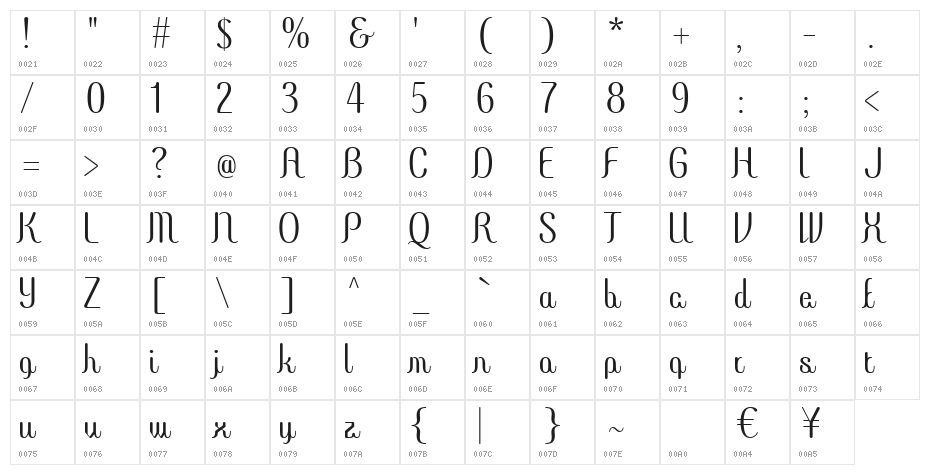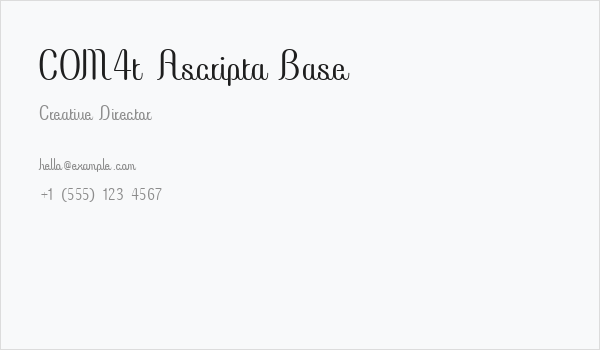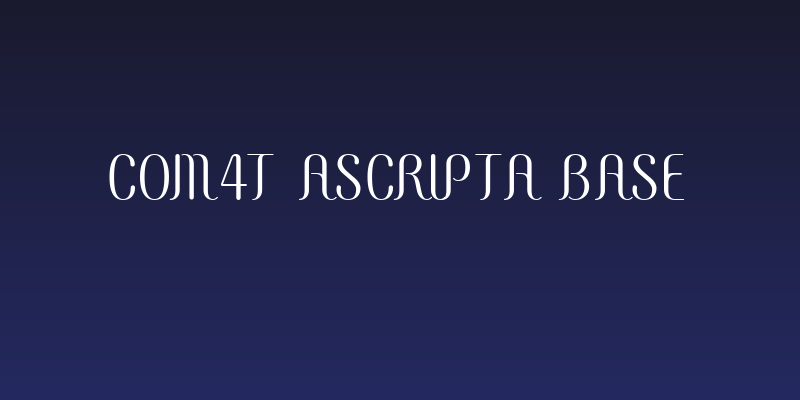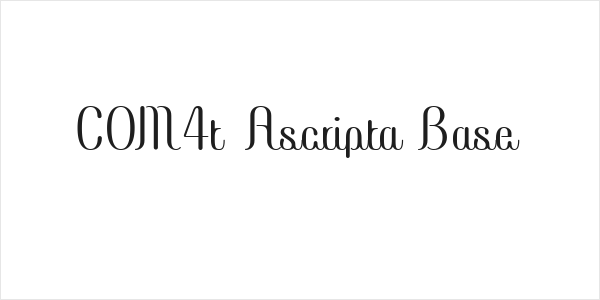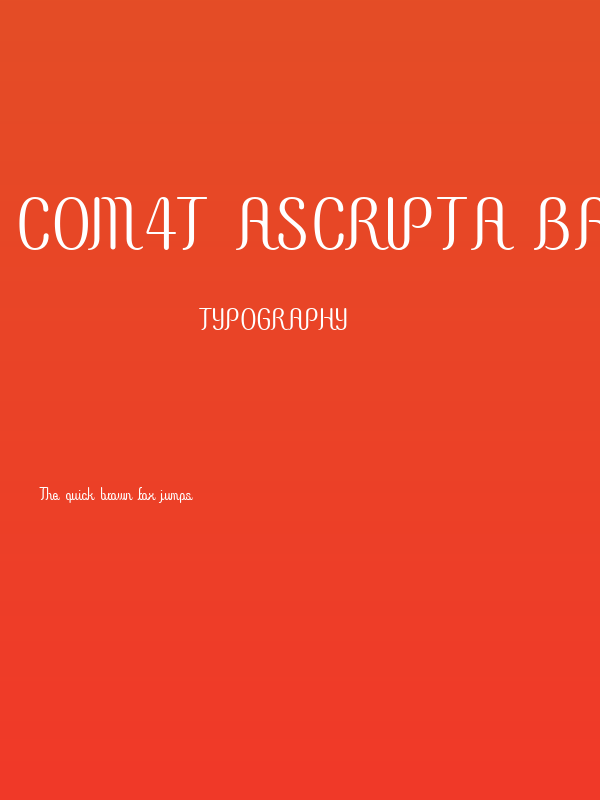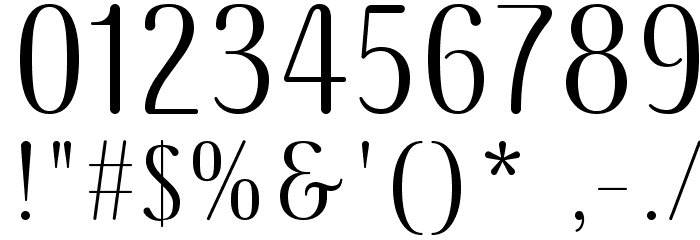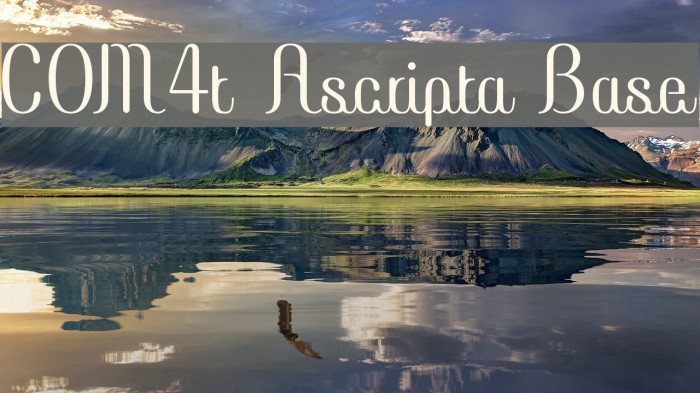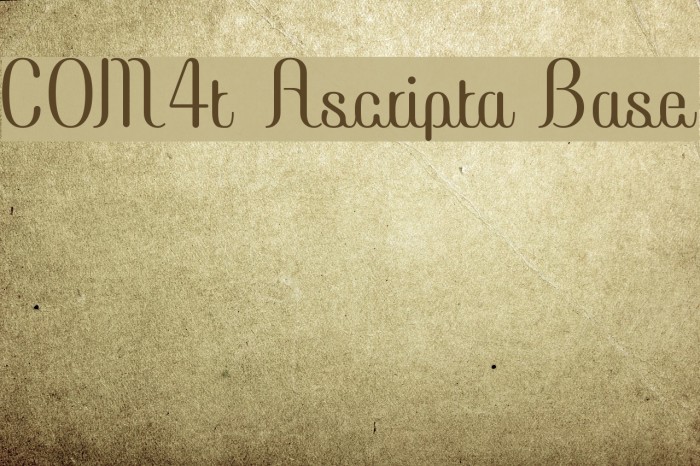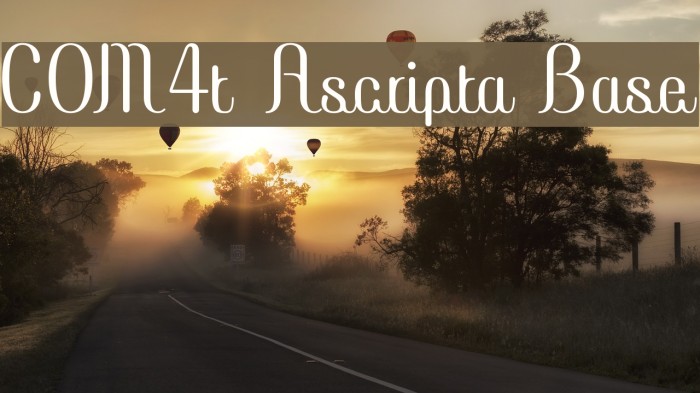
COM4t Ascripta Base Font
COM4t Ascripta Base Description
This font features a unique blend of script and modern styles, characterized by its elegant curves and flowing lines. The uppercase letters are tall and slender, with a slight slant that adds a touch of sophistication. The lowercase letters maintain a consistent style, with smooth transitions and rounded edges that enhance readability. The numerals are well-proportioned, matching the overall aesthetic of the font. Special characters are thoughtfully designed, integrating seamlessly with the rest of the typeface. This font's distinct personality makes it suitable for a variety of creative applications.
| Proposed Projects | Ideal for wedding invitations, branding, and editorial design. |